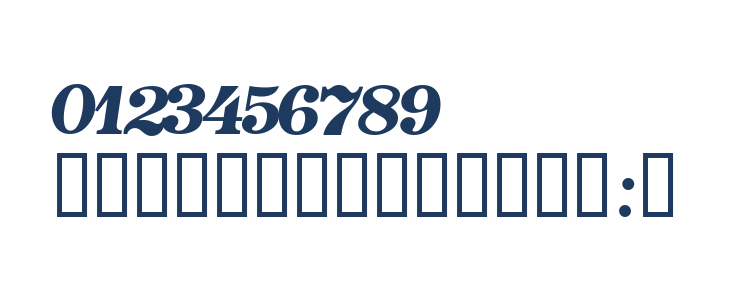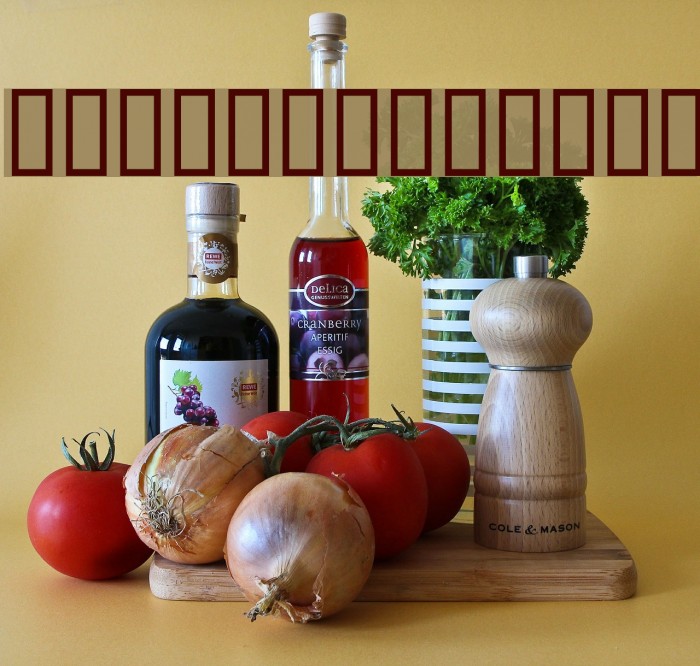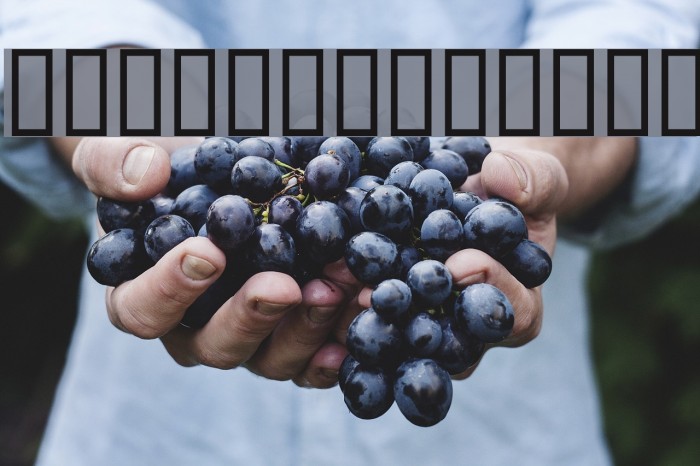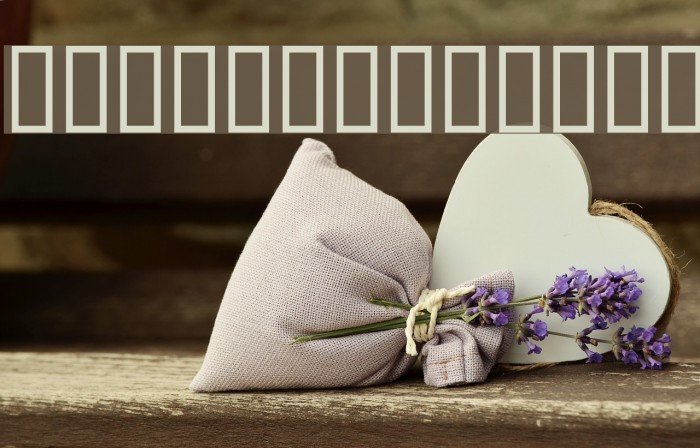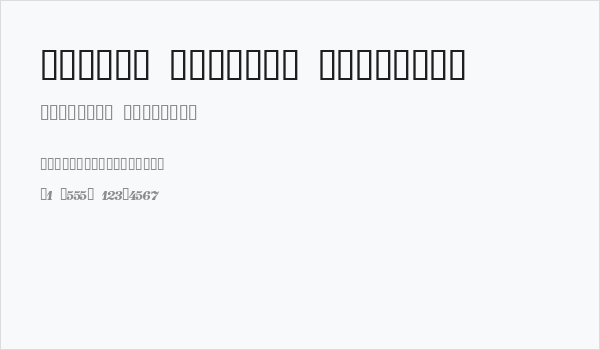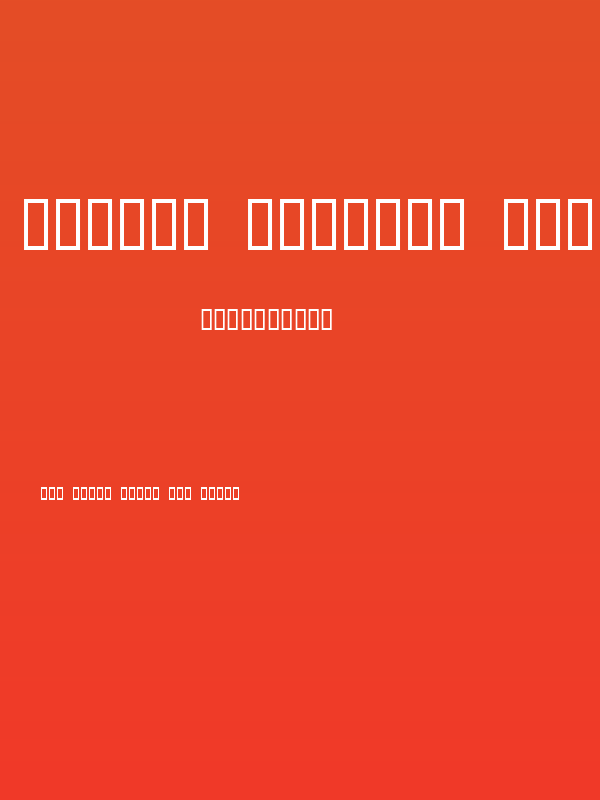
Tuplet Numbers [Sonata] Font
Tuplet Numbers [Sonata] Description
This font features a bold and elegant style, characterized by its high contrast between thick and thin strokes. The numerals are designed with a classic flair, incorporating subtle curves and sharp angles that give them a sophisticated and timeless appearance. The overall design is reminiscent of traditional serif fonts, yet it maintains a modern touch with its clean lines and balanced proportions. The bold weight of the characters ensures strong visibility, making it suitable for impactful displays and headings.